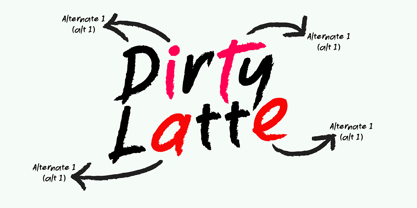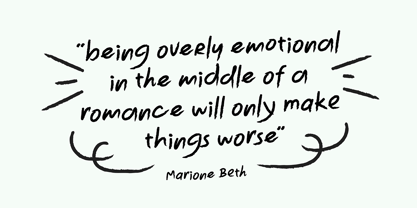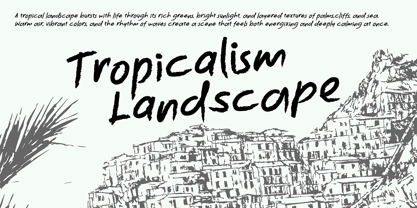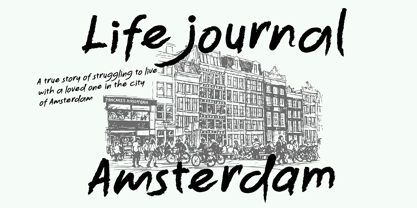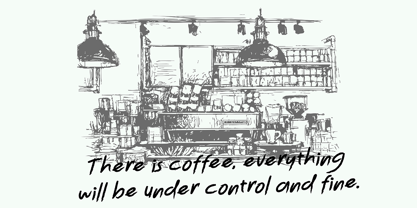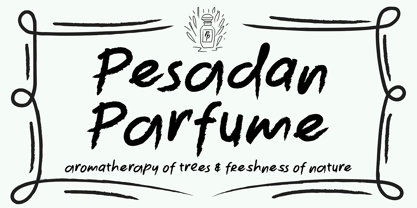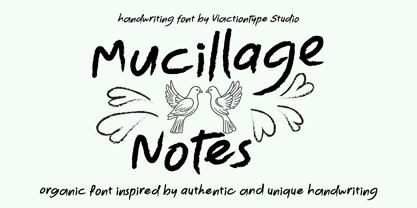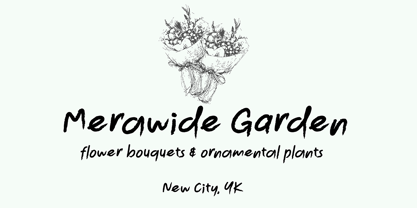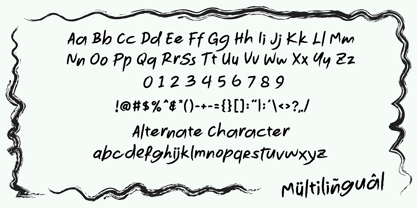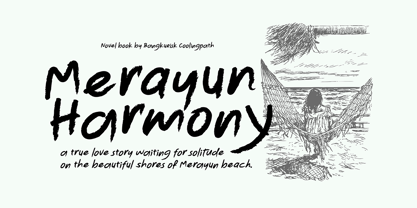
Murillage Notes
by Viaction Type.Co
The Murillage Notes Font Family was designed by Lukman Hidayat and published by Viaction Type.Co. Murillage Notes contains 2 styles and family package options. More about this family
Murillage Notes – Handwriting Brush Font is a graceful and expressive display brush typeface crafted to capture the beauty of dynamic, feminine handwritten strokes. Inspired by real ink brush handwriting, this font flows with smooth curves, natural rhythm, and soft movement—bringing a sense of elegance, warmth, and luxury to every composition. Designed with lively brush pressure and authentic stroke texture, Murillage Notes delivers a realistic handcrafted feel. Each letterform shows visible brush detail and organic variation, making your typography look personal, artistic, and premium rather than mechanical. The style feels free and fluid while maintaining refined structure—perfect for designs that aim to be both expressive and sophisticated. This font includes two styles: Regular and Oblique, allowing you to create motion and emphasis in your layouts. It also comes with alternate characters and multilingual support, giving you greater creative flexibility for branding and international projects. Murillage Notes – Handwriting Brush Font works beautifully for luxury branding, beauty products, fashion labels, wedding stationery, cosmetic packaging, editorial headlines, signature logos, and elegant social media visuals.
Designers: Lukman Hidayat
Foundry: Viaction Type.Co